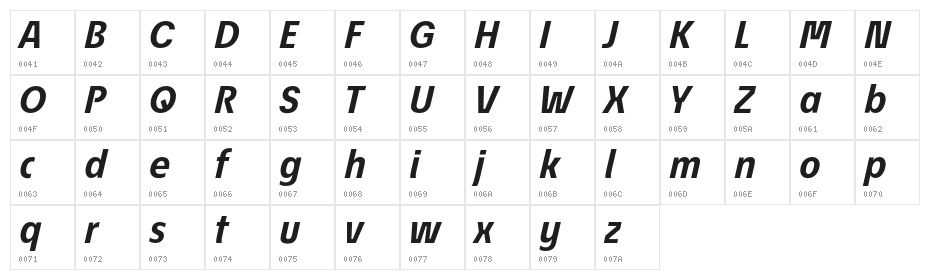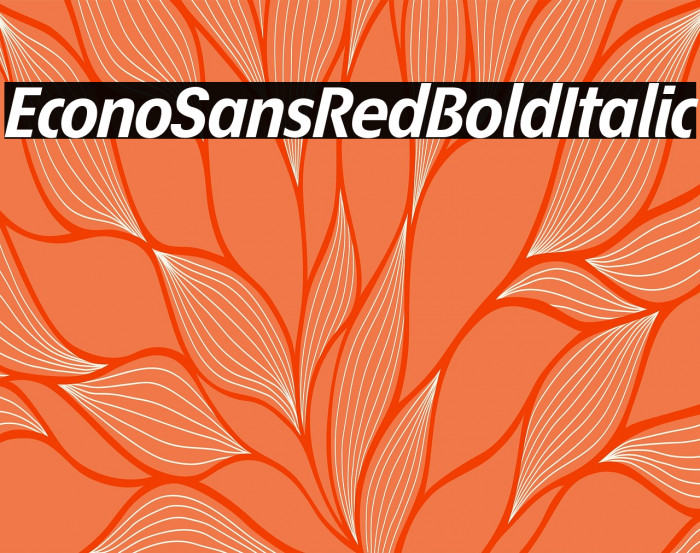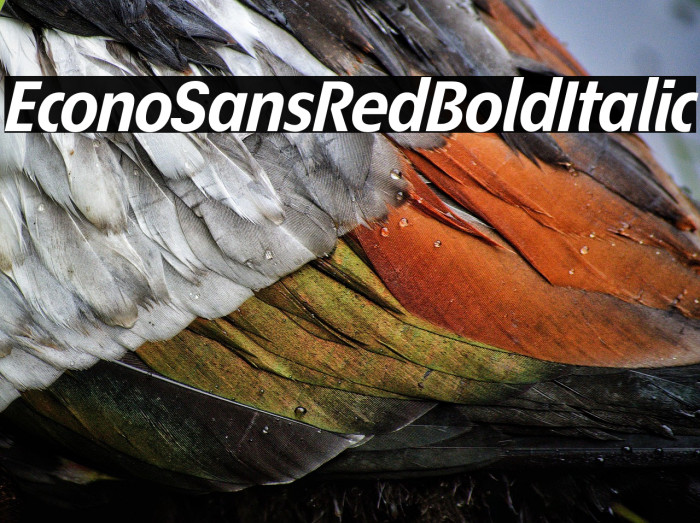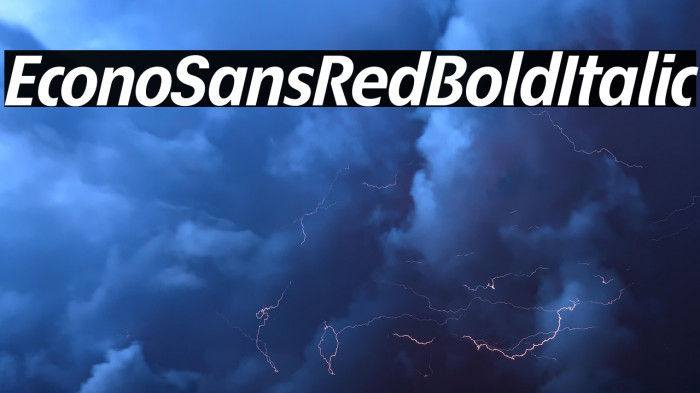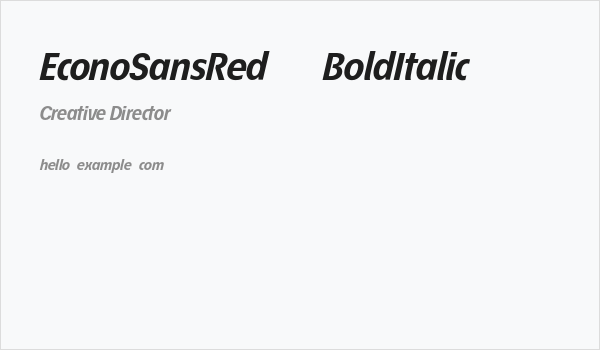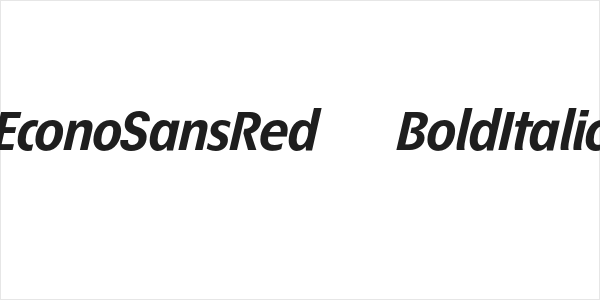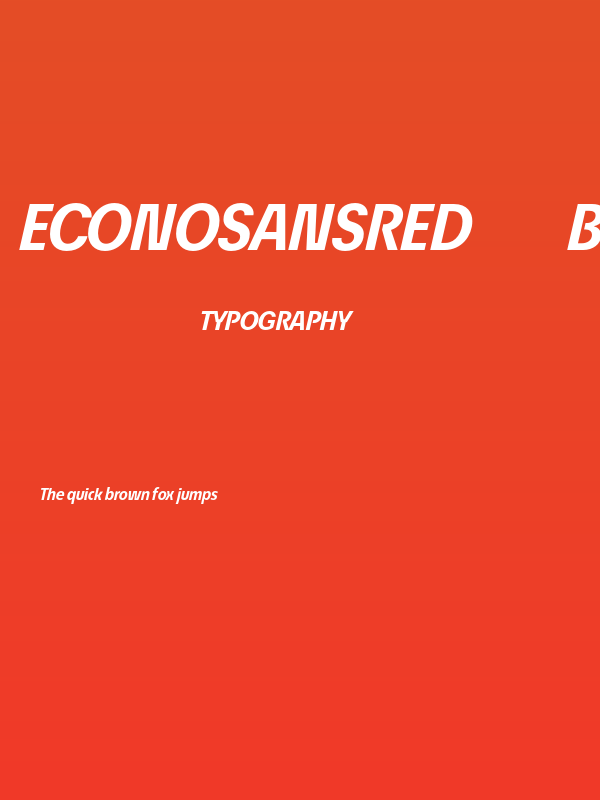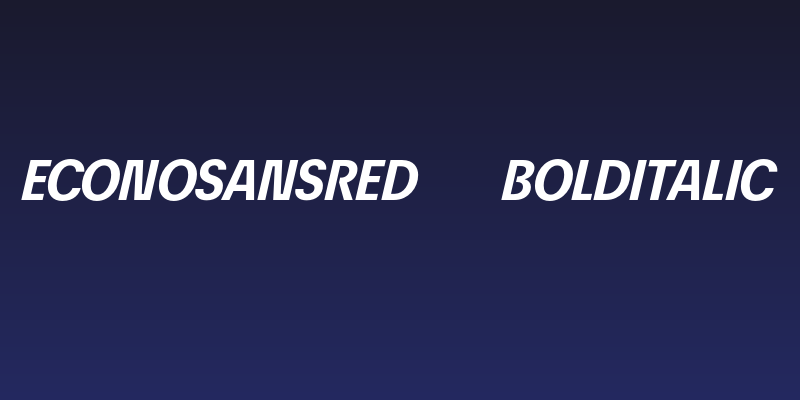
EconoSansRed-76BoldItalic Font
EconoSansRed-76BoldItalic Description
This font exhibits a bold and italicized style, characterized by its strong, dynamic presence. The letters are slightly slanted, adding a sense of motion and energy. The strokes are consistent in thickness, providing a uniform appearance across all characters. The font maintains a modern and clean aesthetic, making it suitable for various contemporary applications. Its sans-serif nature ensures readability, while the boldness emphasizes importance and attention. The spacing between characters is normal, ensuring clarity without overcrowding. This font is versatile, capable of being used in both digital and print media.
| Use Case | Headlines, Logos, Advertising |
| Proposed Projects | Ideal for headlines, advertising, branding, and digital media where a strong, modern impression is needed. |